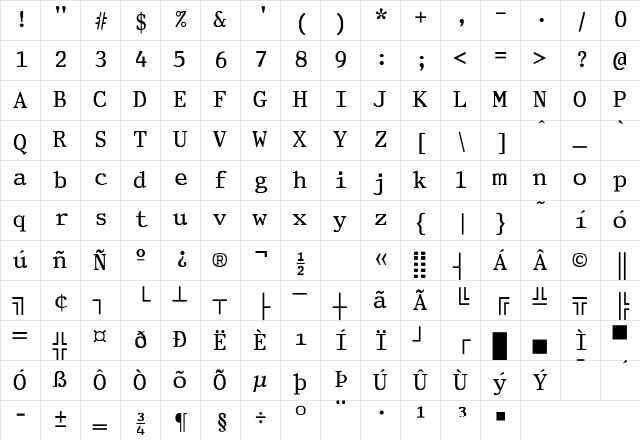
Complete PrestigeEliteBold-Bold Regular glyph index. Displaying only characters natively supported by PrestigeEliteBold-Bold Regular font.
PrestigeEliteBold-Bold is a composed and adaptable typeface that performs quietly and consistently across a wide range of design contexts. Its bold stroke weight gives it real presence on the page.